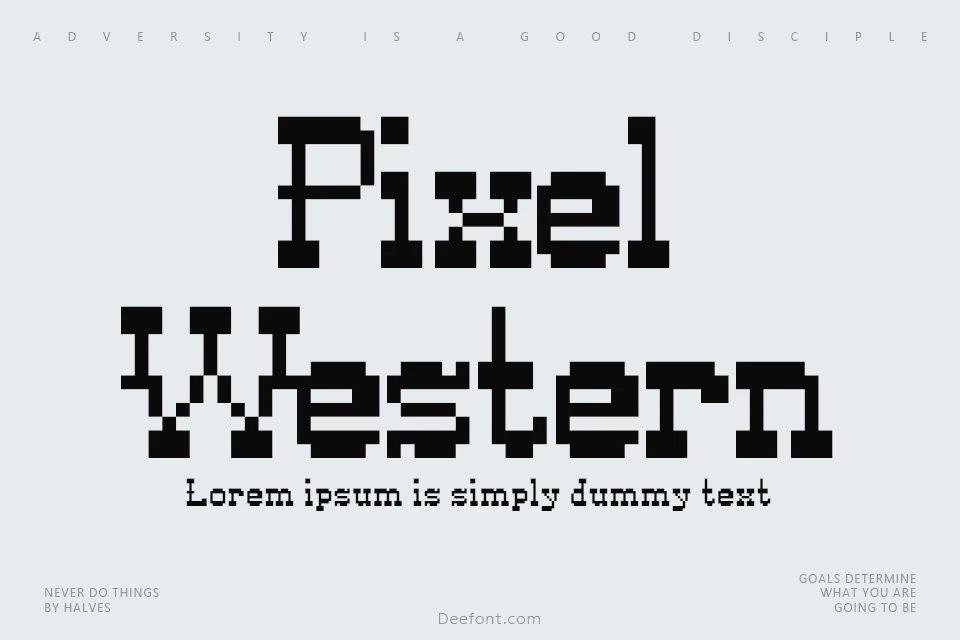
Pixel Western Font
This bitmap font was created on the challenge that I could get the intricate detail of an Old West font in a pixel version. All letters and numbers including. Since I didn’t feel this font would be used in conversations, I replaced many of the little-used symbols with custom dingbats.